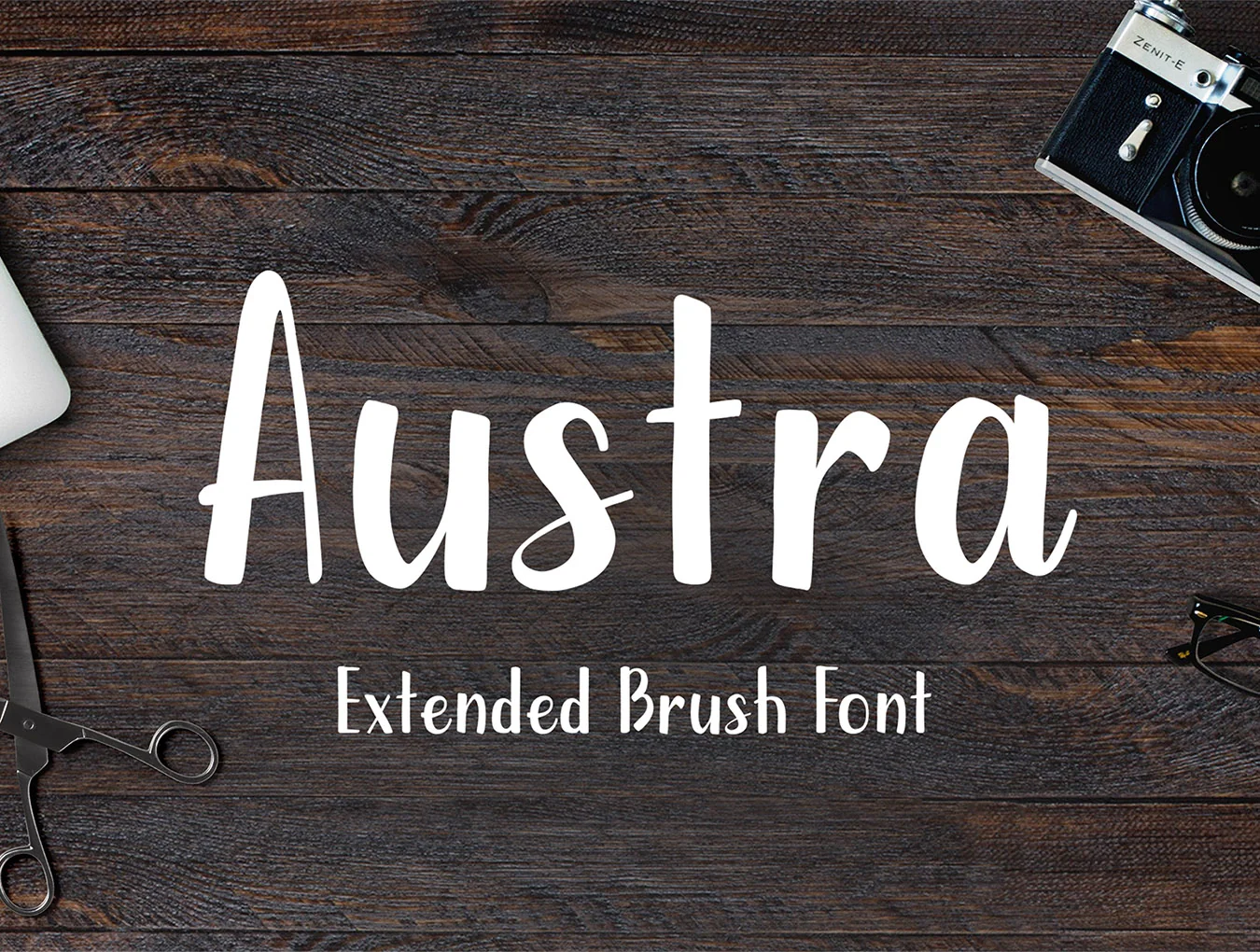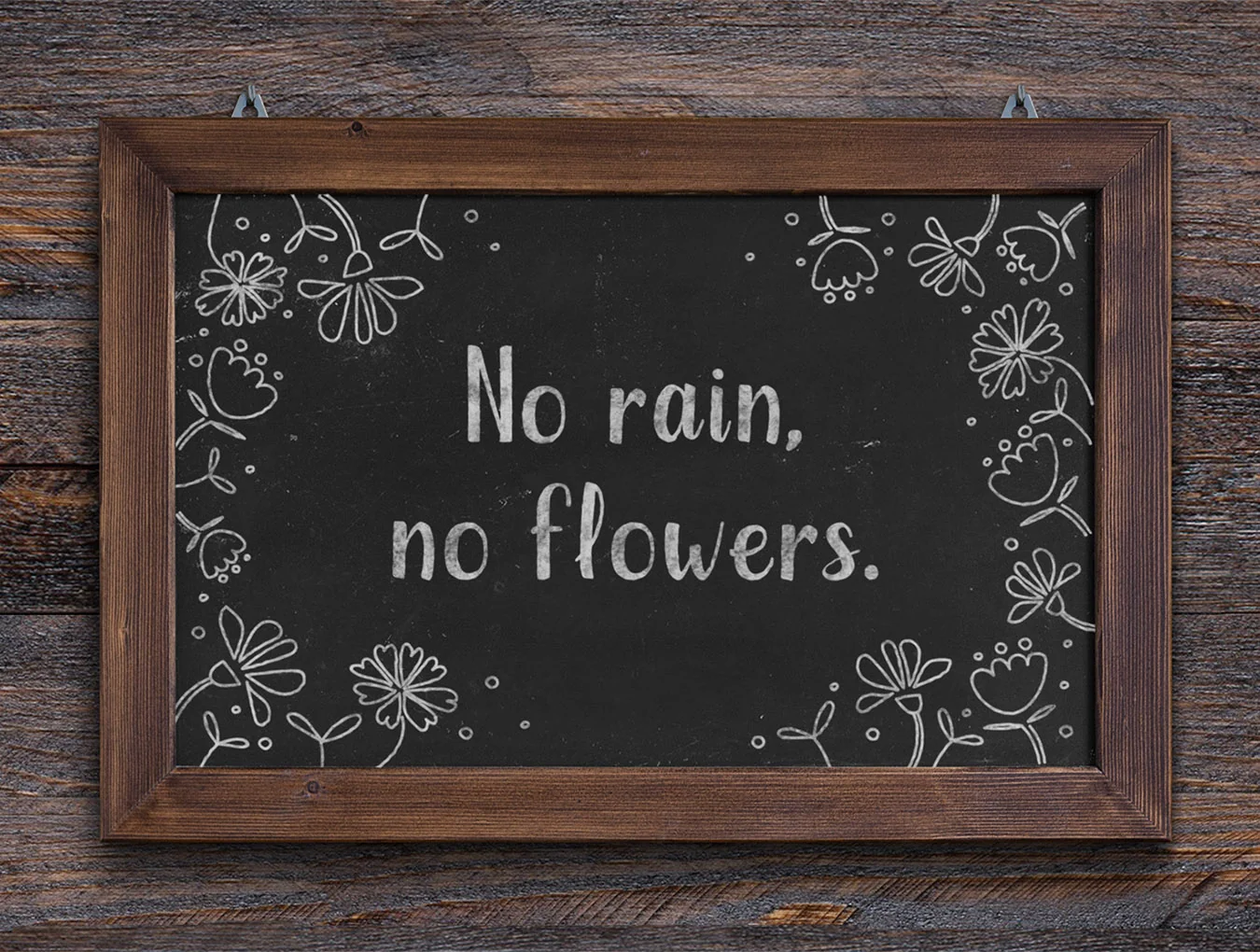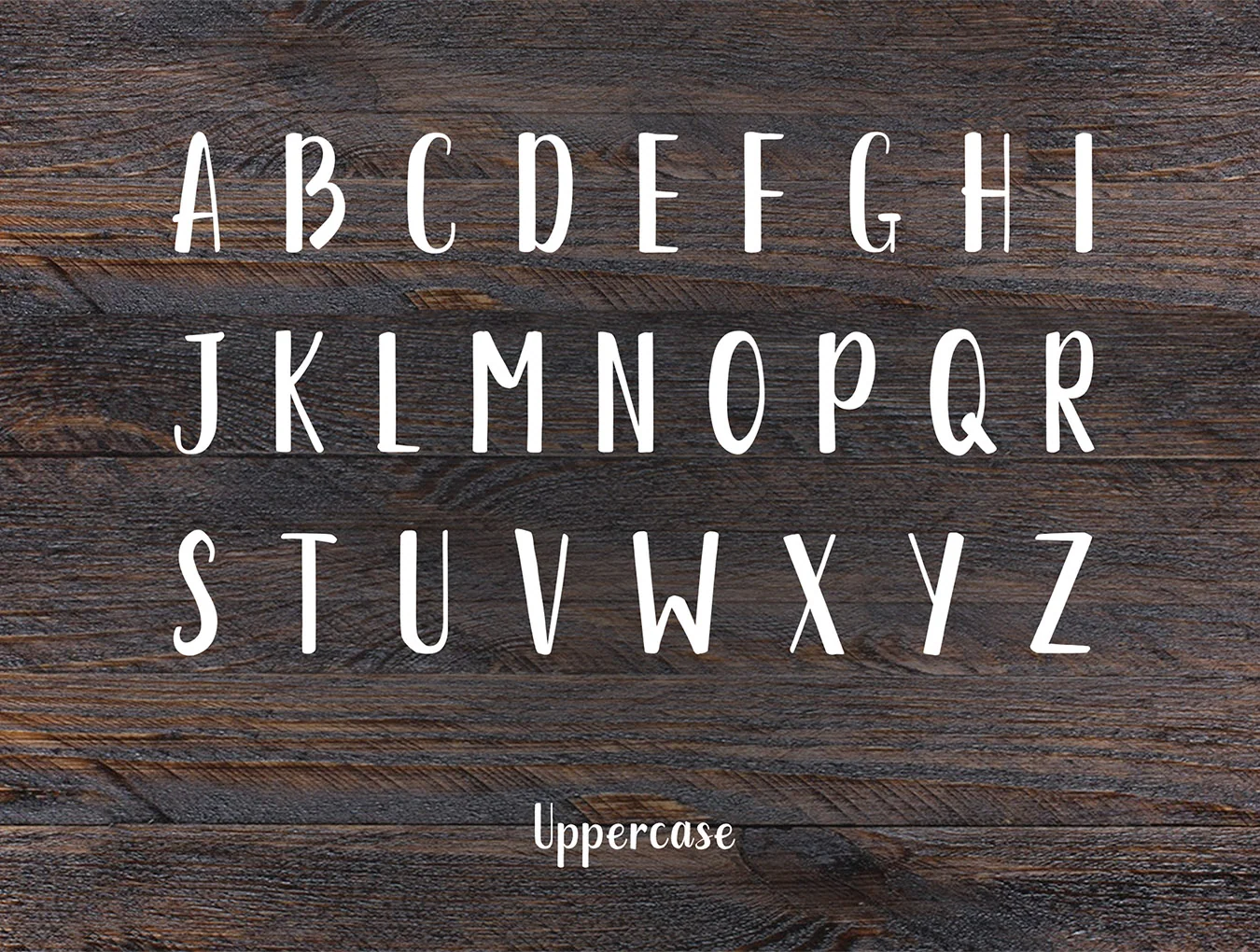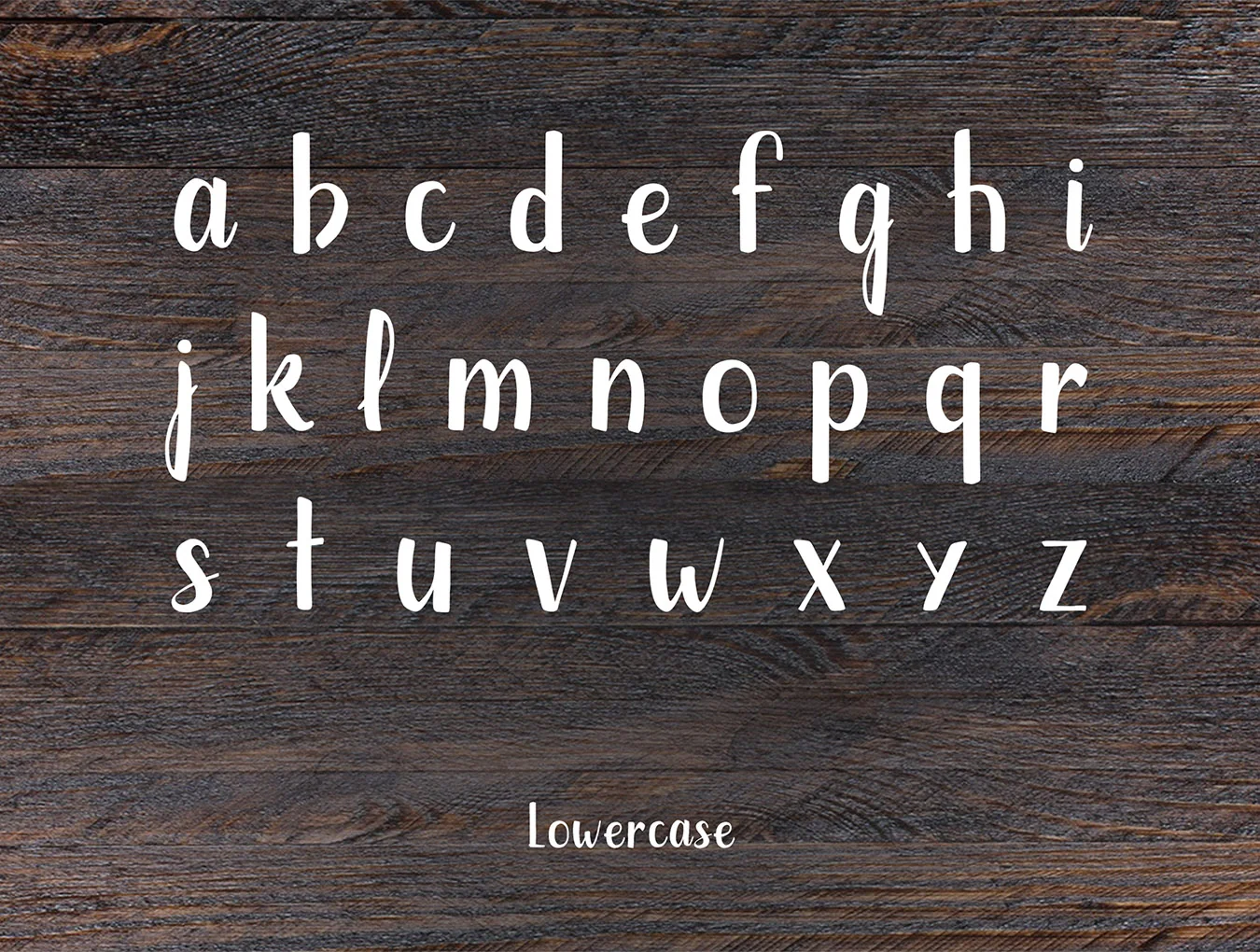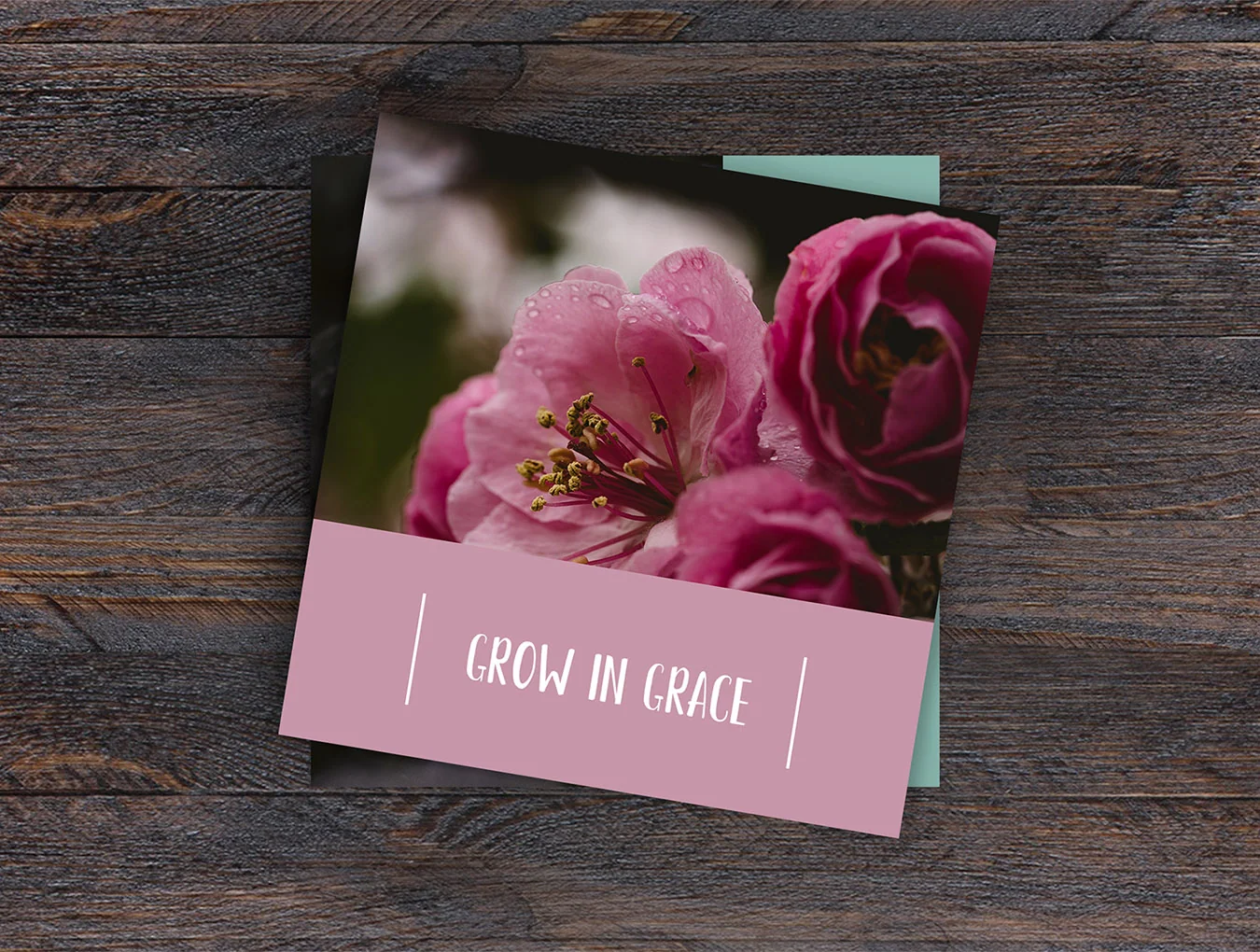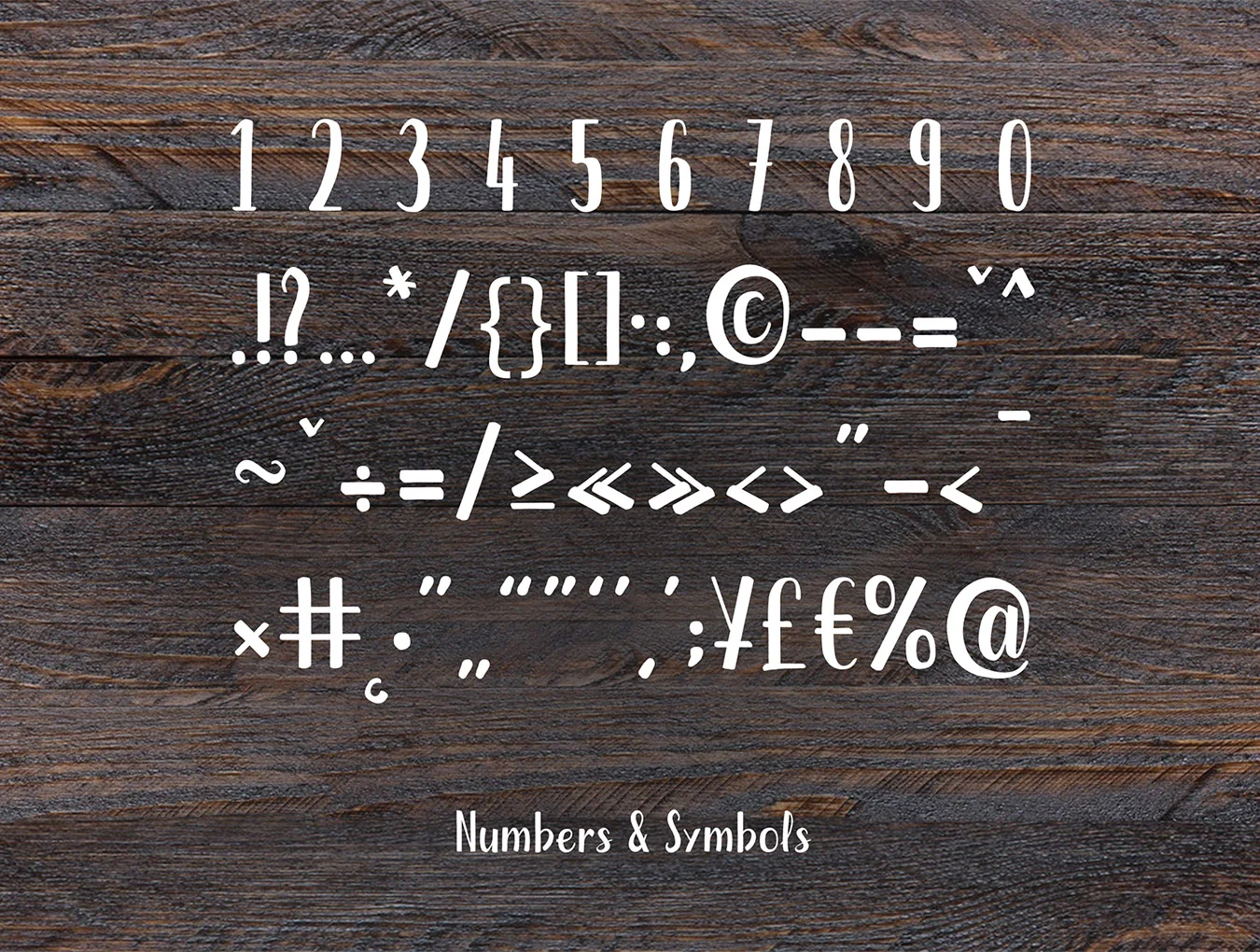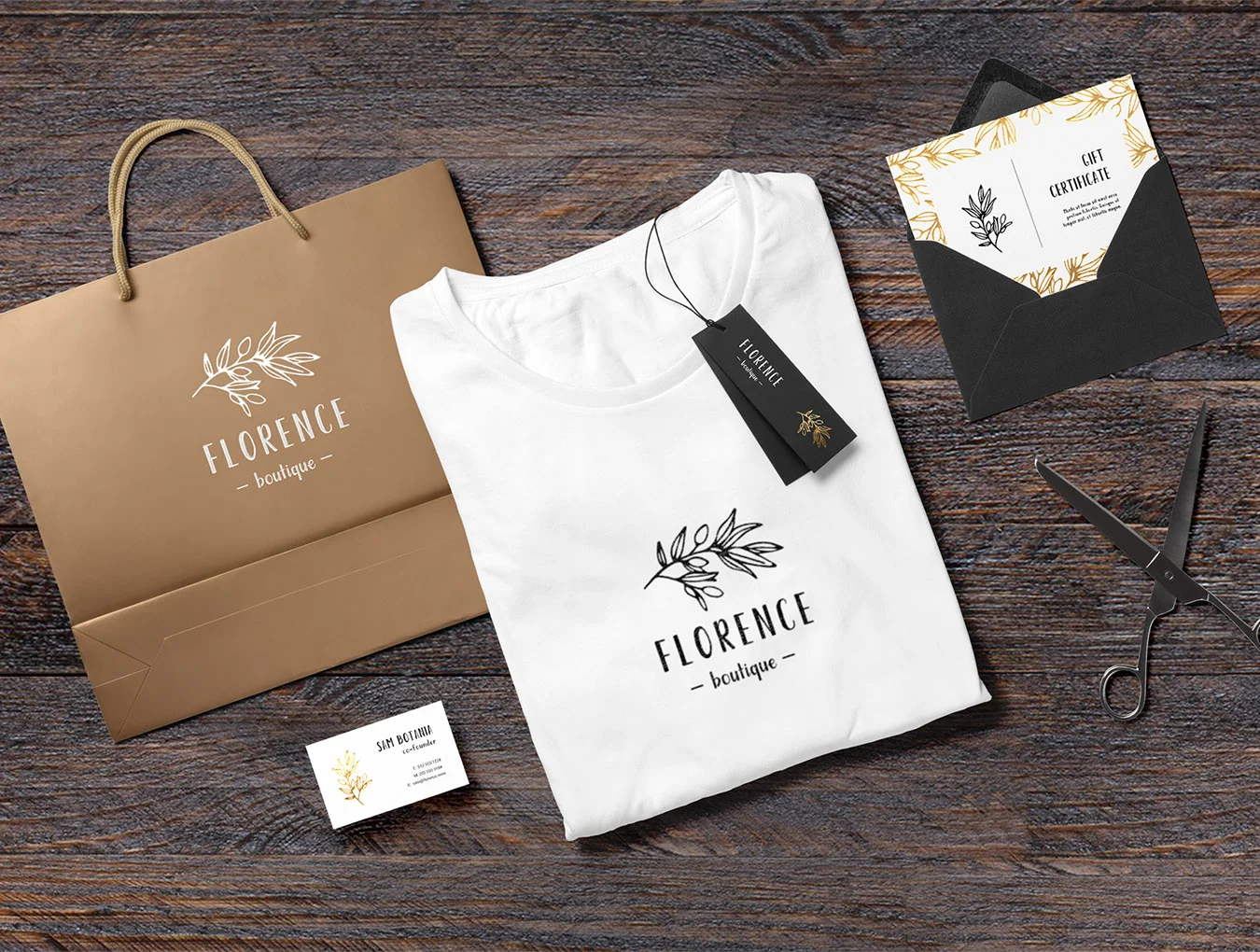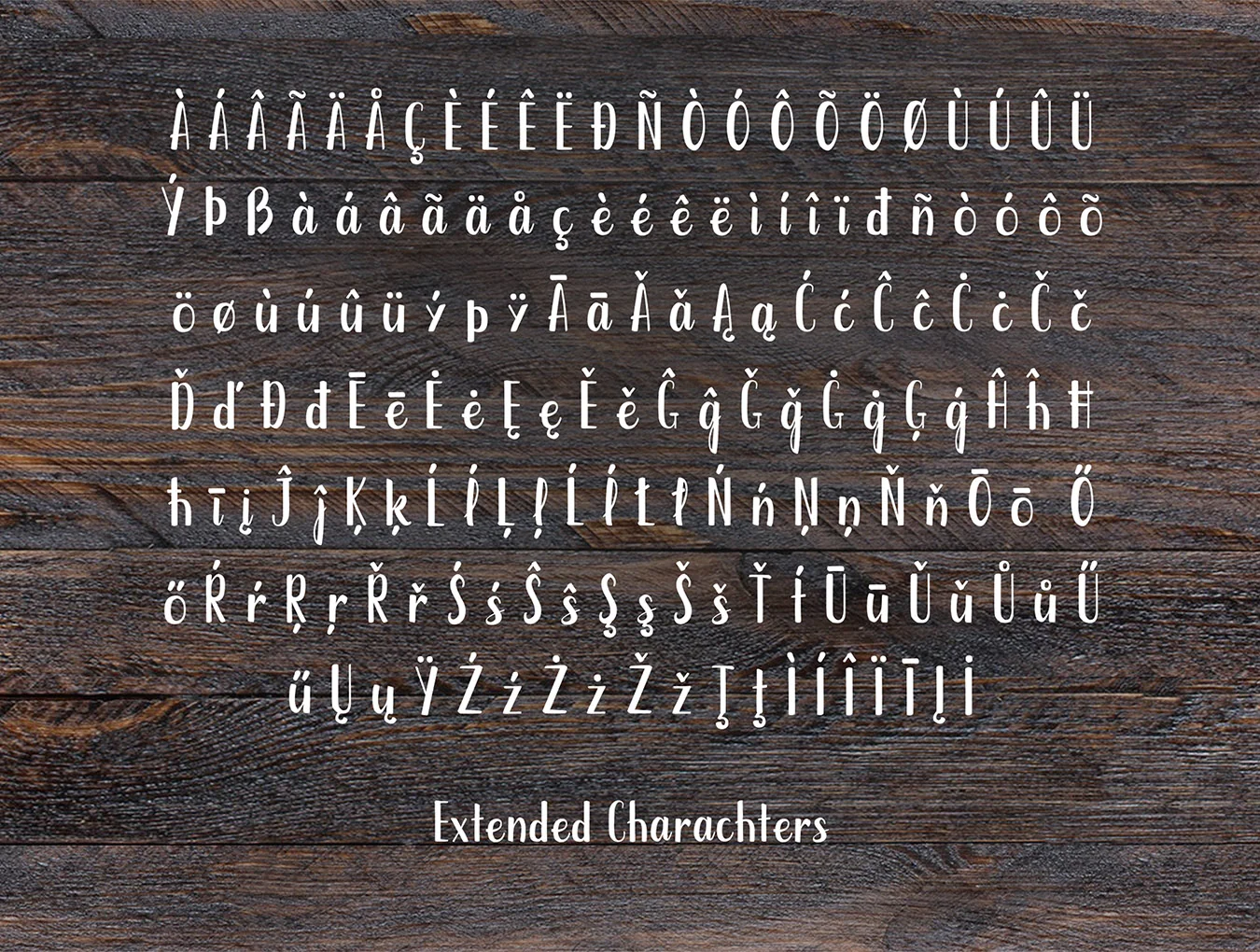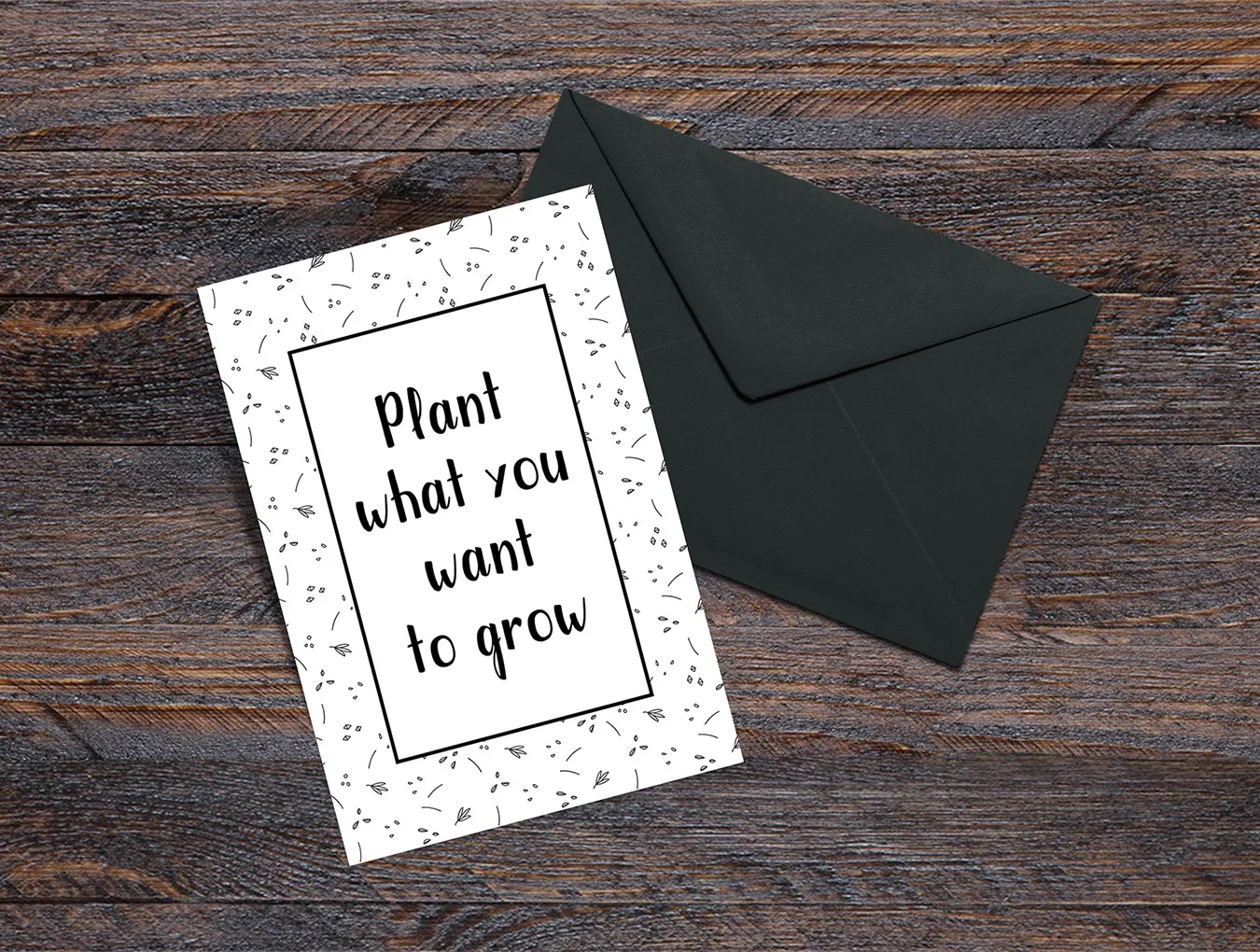
Austra Extended Brush Font
Structured geometric brush typeface with a bold underlying build.
Elongated brush-style typeface
Capital and small letterforms
Expanded character set
Austra Extended Brush Font blends geometric brush styling with a solid structural base. Ideal for brief text, logos, branding, packaging, headlines, and more. Includes uppercase and lowercase letters, numbers, symbols, and extended characters.